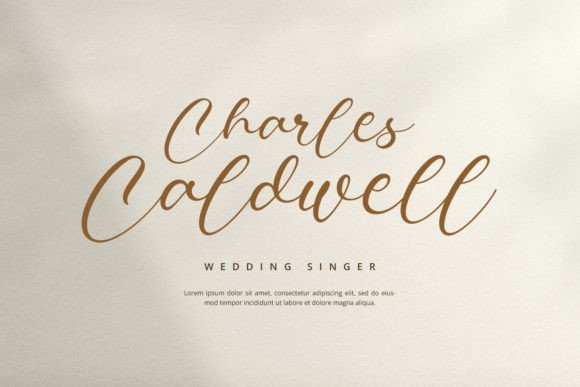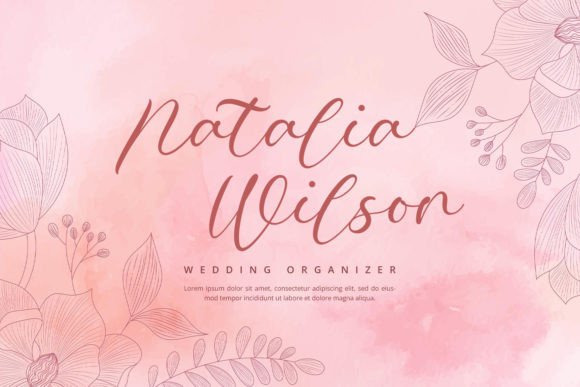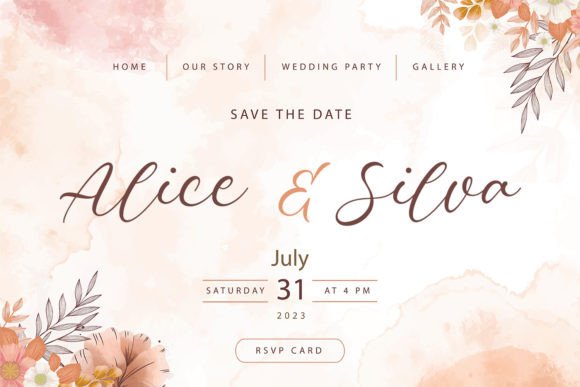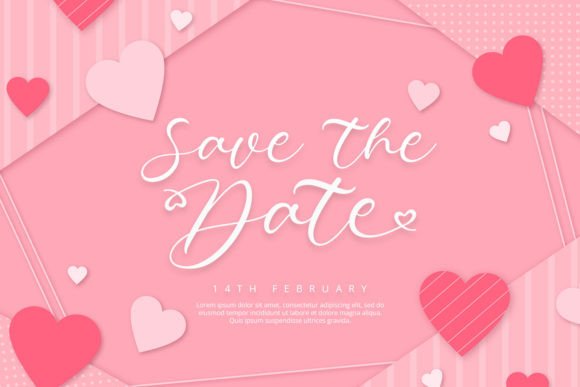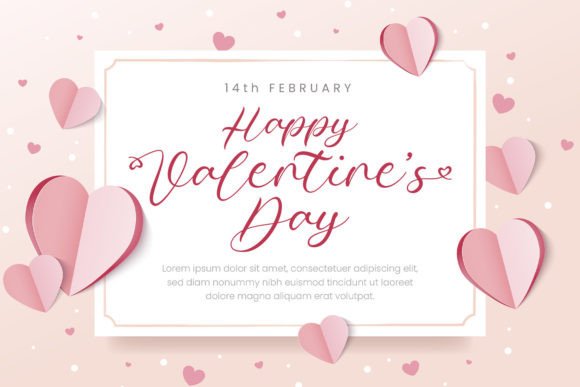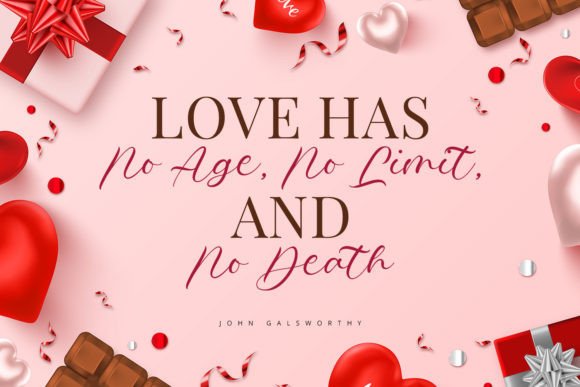
Courting Font: The Perfect Valentine’s Script Font for Designers and Crafters
Are you looking for a romantic and modern script font to add a touch of elegance to your design projects? Look no further than Courting Font, a beautiful Valentine’s script font that is perfect for a variety of creative endeavors. In this article, we’ll take a closer look at Courting Font and explore its features, uses, and benefits for designers and crafters.
What is Courting Font?
Courting Font is a stunning script font that exudes romance and sophistication. With its modern feel and elegant lines, it’s the perfect choice for designers and crafters who want to add a touch of whimsy and charm to their projects. This font is specifically designed for Valentine’s Day, but its versatility makes it suitable for a wide range of applications, from branding and logo design to lettering, logotype, and more.
Key Features of Courting Font
Courting Font comes with a range of exciting features that make it a must-have for designers and crafters. Here are some of its key features:
- Romantic and Modern Feel: Courting Font has a unique blend of romantic and modern elements, making it perfect for designers and crafters who want to create beautiful and eye-catching designs.
- Highly Versatile: This font is suitable for a wide range of design projects, including branding, logo design, lettering, logotype, clothing, posters, magazines, packaging, shopping bags, t-shirts, book covers, photography, special events, and more.
Uses of Courting Font
Courting Font is an incredibly versatile font that can be used for a wide range of design projects. Here are some of the ways you can use Courting Font:
- Branding and Logo Design: Use Courting Font to create a beautiful and memorable logo for your brand. Its elegant lines and romantic feel make it perfect for businesses that want to convey a sense of sophistication and charm.
- Lettering and Logotype: Courting Font is ideal for lettering and logotype projects. Its unique blend of modern and romantic elements makes it perfect for creating eye-catching and stylish text.
- Clothing and Accessories: Use Courting Font to add a touch of elegance to your clothing and accessories designs. It’s perfect for creating beautiful and eye-catching designs for t-shirts, hoodies, bags, and more.
- Posters and Magazines: Courting Font is perfect for creating stunning posters and magazines. Its elegant lines and romantic feel make it ideal for designs that require a touch of sophistication and charm.
- Packaging and Shopping Bags: Use Courting Font to create beautiful and eye-catching packaging and shopping bags. Its modern feel and elegant lines make it perfect for businesses that want to convey a sense of style and sophistication.
Benefits of Courting Font
Courting Font offers a range of benefits for designers and crafters. Here are some of the advantages of using this beautiful font:
- Elegant and Sophisticated: Courting Font adds a touch of elegance and sophistication to any design project. Its romantic and modern feel makes it perfect for designers and crafters who want to create beautiful and eye-catching designs.
- Highly Versatile: Courting Font is suitable for a wide range of design projects, making it a great investment for designers and crafters who want to expand their creative possibilities.
- Easy to Use: Courting Font is PUA encoded, making it easy to access all of the glyphs and swashes. This means you can focus on creating beautiful designs without worrying about complicated font files.
Courting Font is a beautiful Valentine’s script font that is perfect for designers and crafters who want to add a touch of romance and sophistication to their design projects. With its modern feel, elegant lines, and highly versatile design, Courting Font is a great investment for anyone who wants to create stunning and eye-catching designs. Whether you’re working on branding, logo design, lettering, or any other design project, Courting Font is the perfect choice.